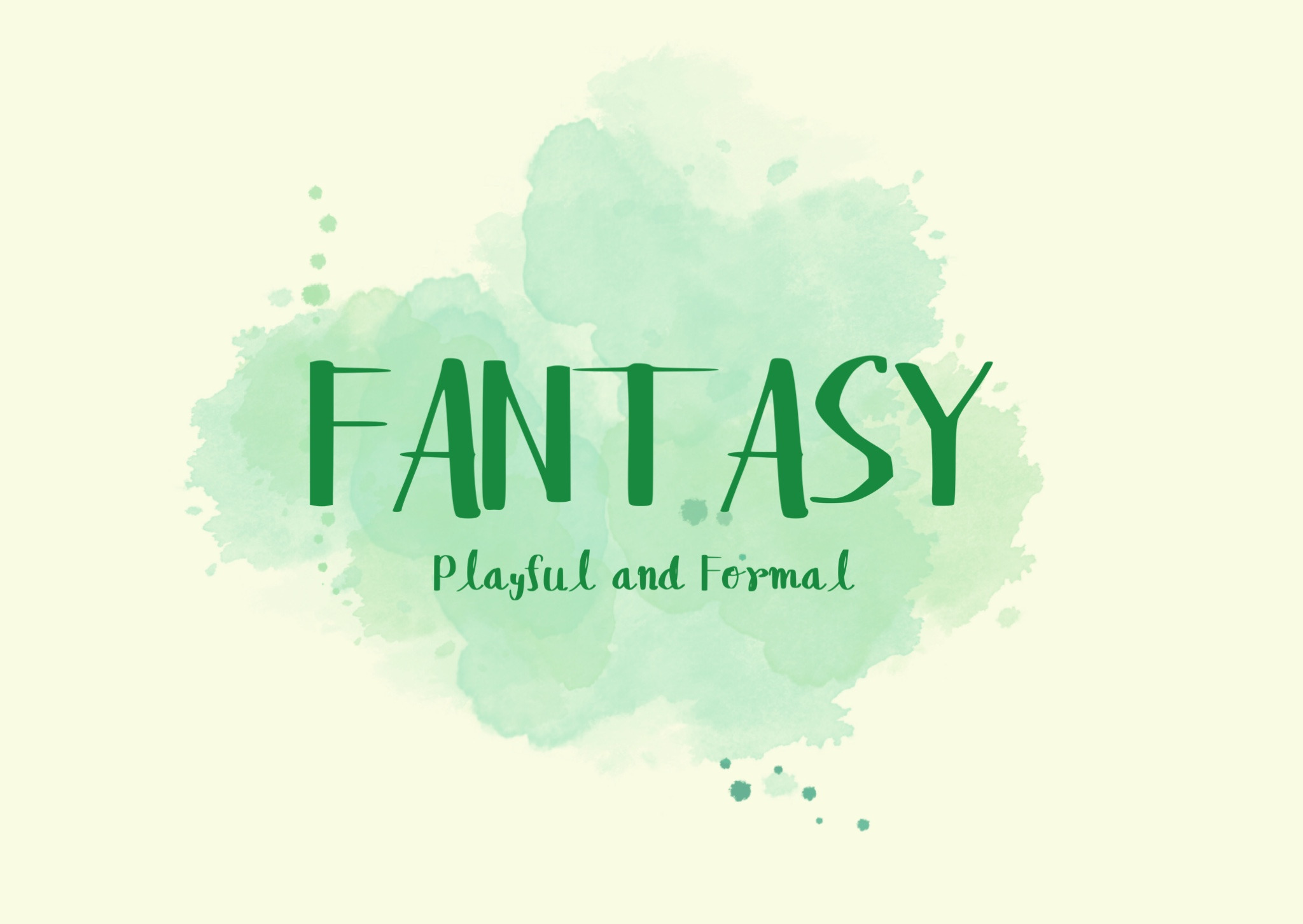
Fantasy | A script font
Are you looking for a Handlettering font which is elegant gorgeous and has a custom touch? Then Introducing Fantasy. It can be combined with other fonts too. Features:
- Perfect for Graphic designs
- Perfect for Formal occasions
- Elegant and sophisticated